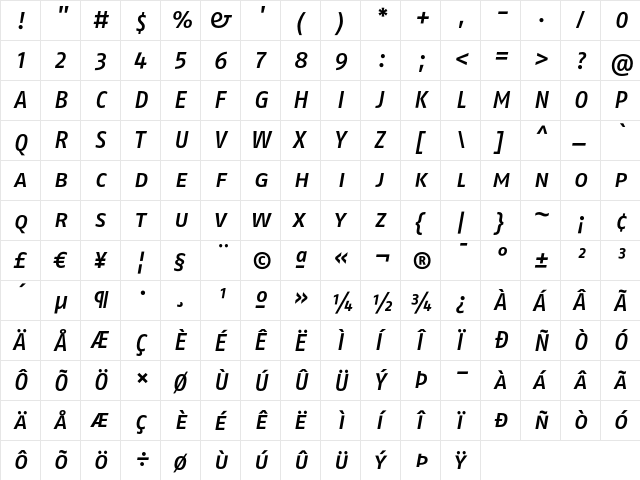
FagoNoLf MedtalicCaps Font Preview
FagoNoLf MedtalicCaps
FagoNoLf MedtalicCaps Font Details
Design Context for FagoNoLf Typeface
FagoNoLf offers clean, dependable letterforms without strong stylistic allegiance, making it a practical choice for designers who need flexibility.
Pro Tip: Use FagoNoLf in both headline and body roles to test its range before committing to a single application.